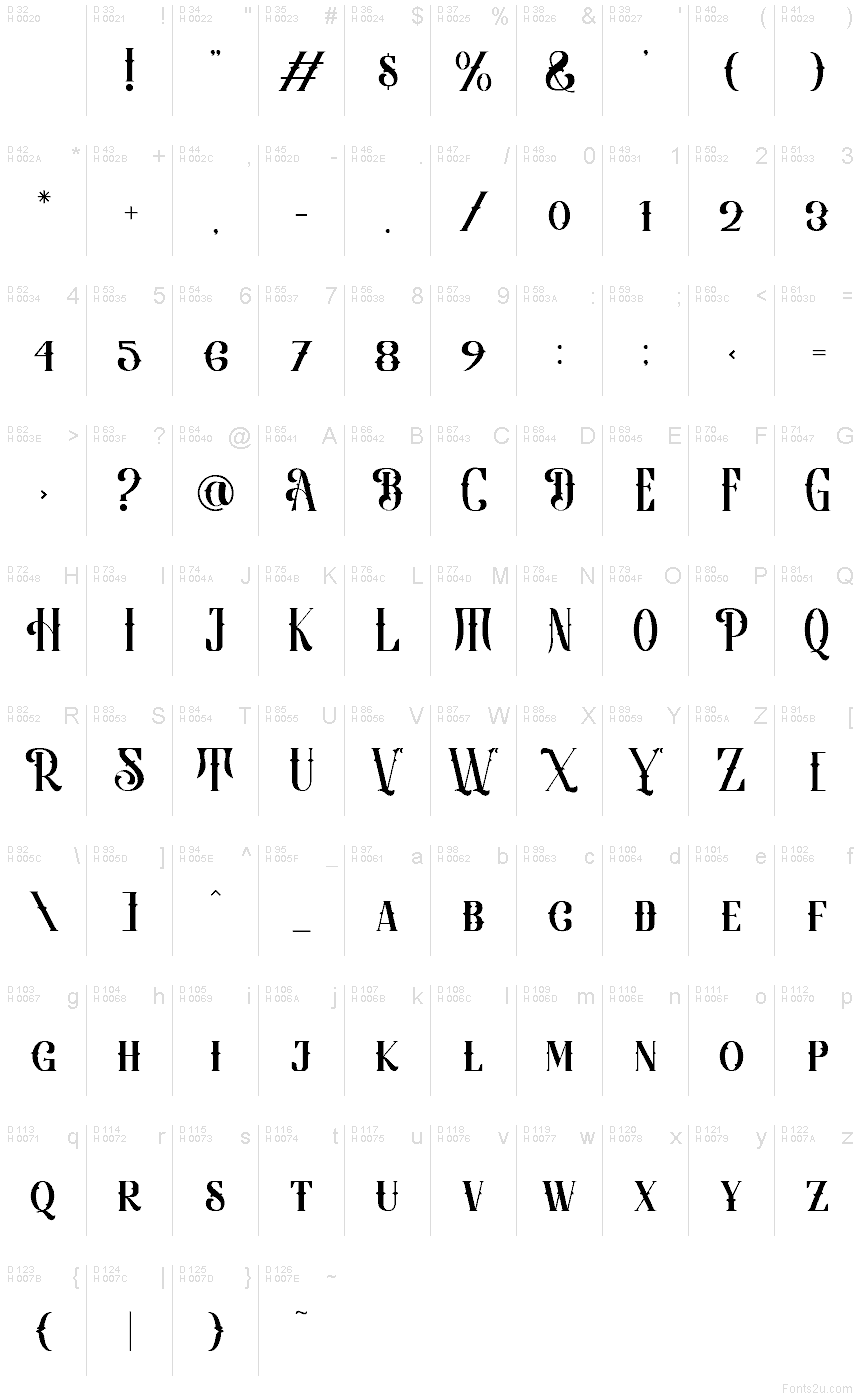
Vintage Binary
Vintage Binary font by PutraCetol Studio is a free retro display typeface that feels like it was pulled from an old apothecary sign or circus poster. Tall, narrow letters with sharp, inky edges and ornate curls give it a dramatic, theatrical presence, while the slightly irregular shapes keep it warm and hand-crafted instead of stiff. It has that moody Victorian flair that instantly turns a plain title into a little piece of storytelling.
Using Vintage Binary, your headlines snap into character for posters, book covers, logos, packaging, themed event invites, and vintage-style branding. This free font shines when used big and bold, letting those decorative strokes breathe and catch the eye. Try pairing it with a clean, minimal sans serif for body text to keep layouts readable while the ornate titles steal the spotlight.